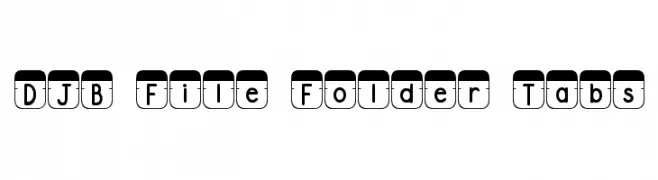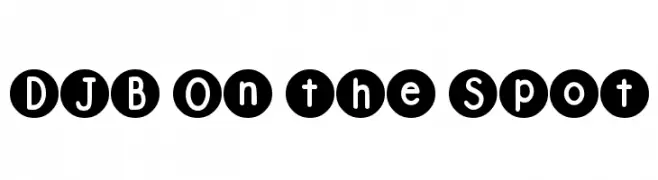
• DJB File Folder Tabs
( Fonts by Darcy Baldwin )
A playful, tab-enclosed font with bold, rounded characters.
• DJB Flower Power
( Fonts by Darcy Baldwin {fontography} )
A playful, flower-encased decorative font with bold, rounded characters.
• DJB Flower Power 2
( Fonts by Darcy Baldwin {fontography} )
A playful font with characters encased in flower shapes, offering a whimsical and decorative style.
• DJB Holly Jolly
A playful, whimsical font with geometric and hand-drawn elements, perfect for festive designs.
• DJB HOLLY JOLLY B'GOLLY
A whimsical and playful font with bold and thin strokes, perfect for festive designs.
• DJB How Cute Am I
A playful handwritten font with a casual, friendly appearance.
• DJB On the Spot
( Fonts by Darcy Baldwin )
A playful, bold font with characters enclosed in black circles, offering a unique and decorative style.
• DJB Ransom Note
( Fonts by Darcy Baldwin {fontography} )
A playful, eclectic font with a ransom note style, featuring diverse and decorative characters.
• DJB Ransom Note Clipped
( Fonts by Darcy Baldwin )
A playful, eclectic font mimicking cut-out letters, ideal for quirky designs.
• DJB Ransom Note Clipped Messy
( Fonts by Darcy Baldwin )
A playful, eclectic font resembling a collage of magazine clippings.